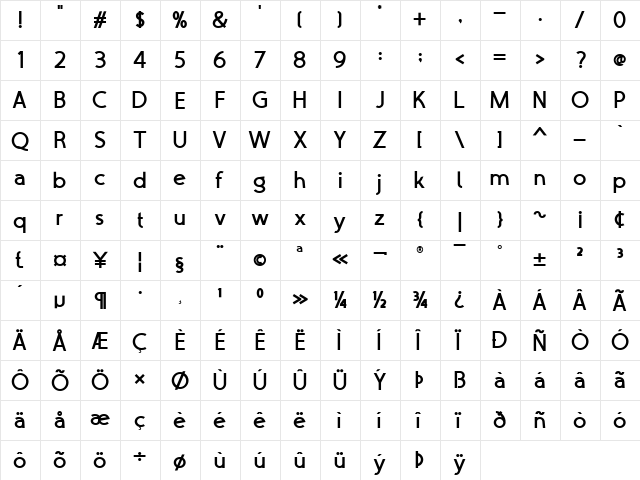
Pastika DEMO Medium
| Foundry | Suandana Ipandemade |
| Designer | Suandana Ipandemade |
Design Context for Pastika DEMO Typeface
Pastika DEMO takes a measured approach to typography — its balanced proportions and neutral character make it a reliable workhorse for both digital and print work.